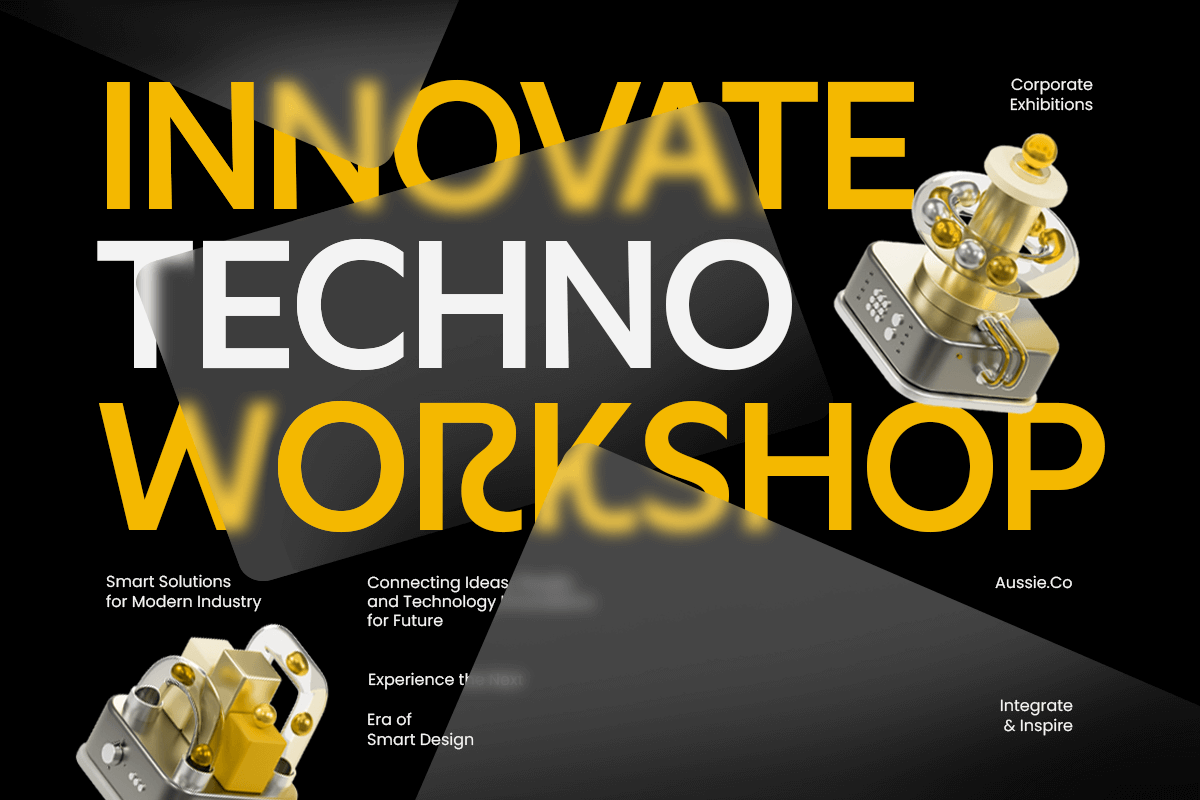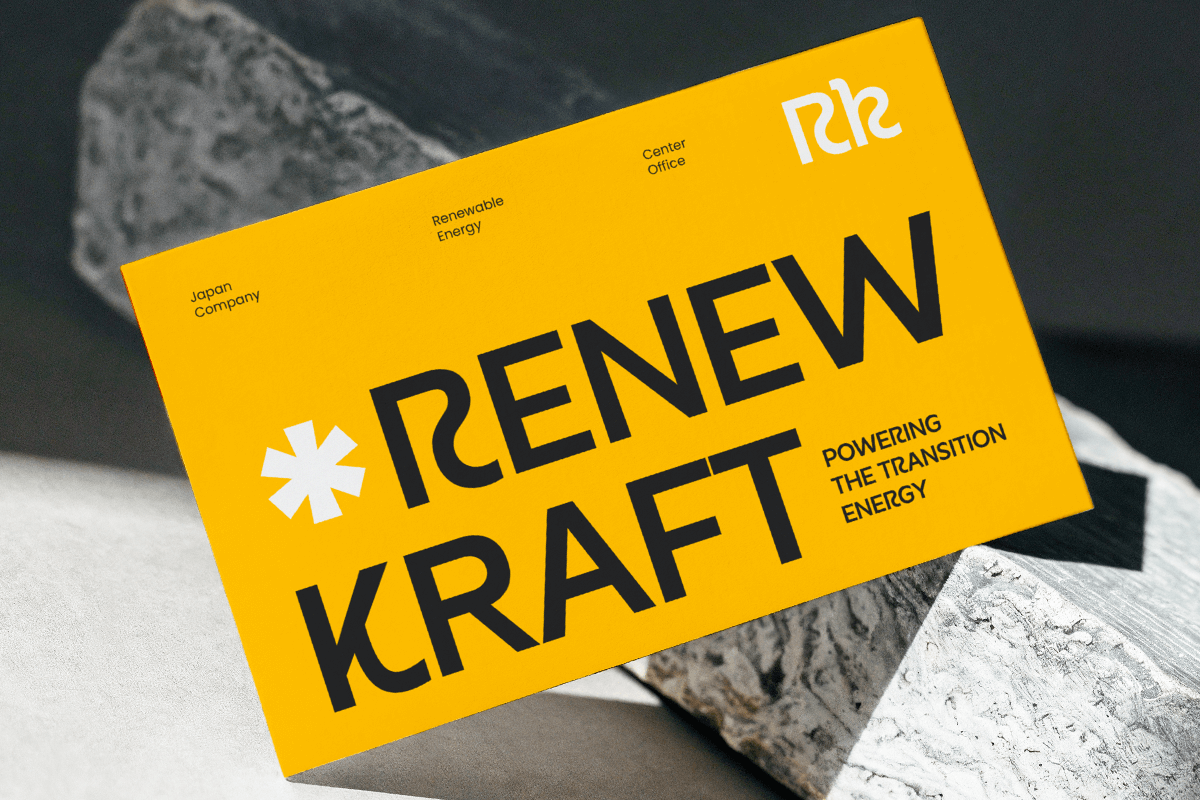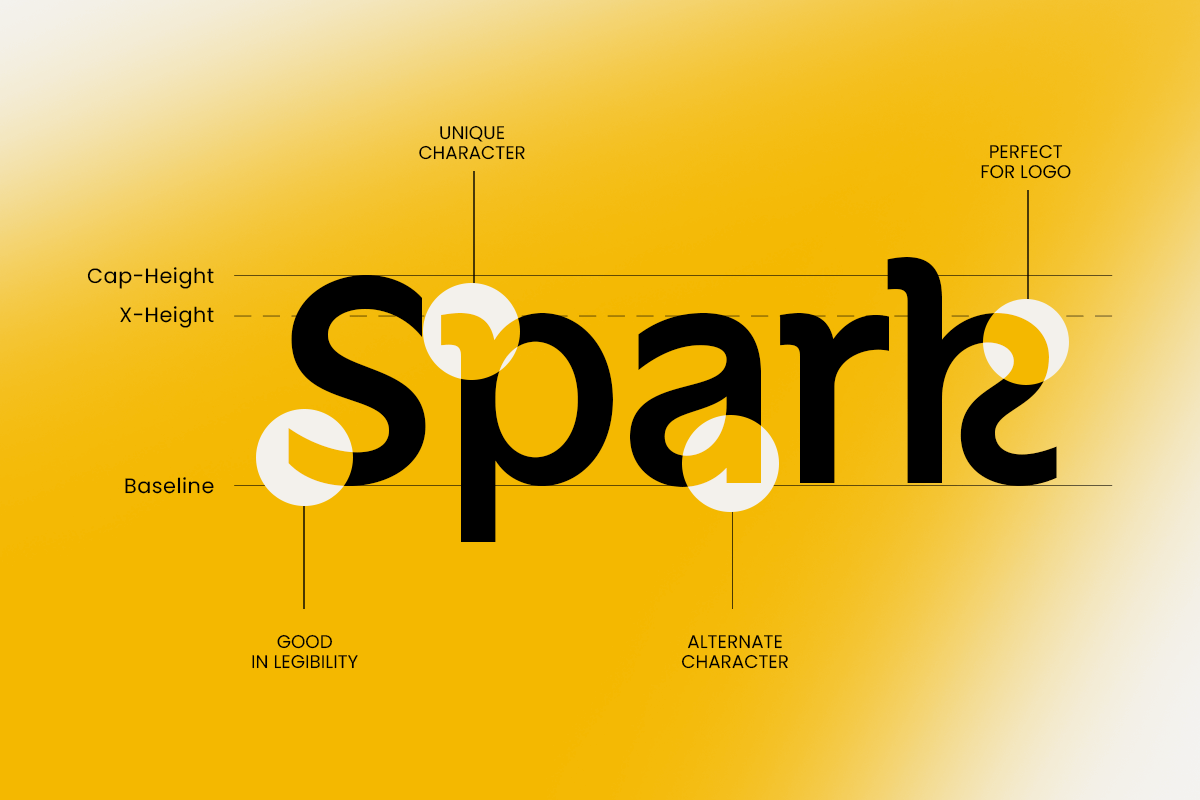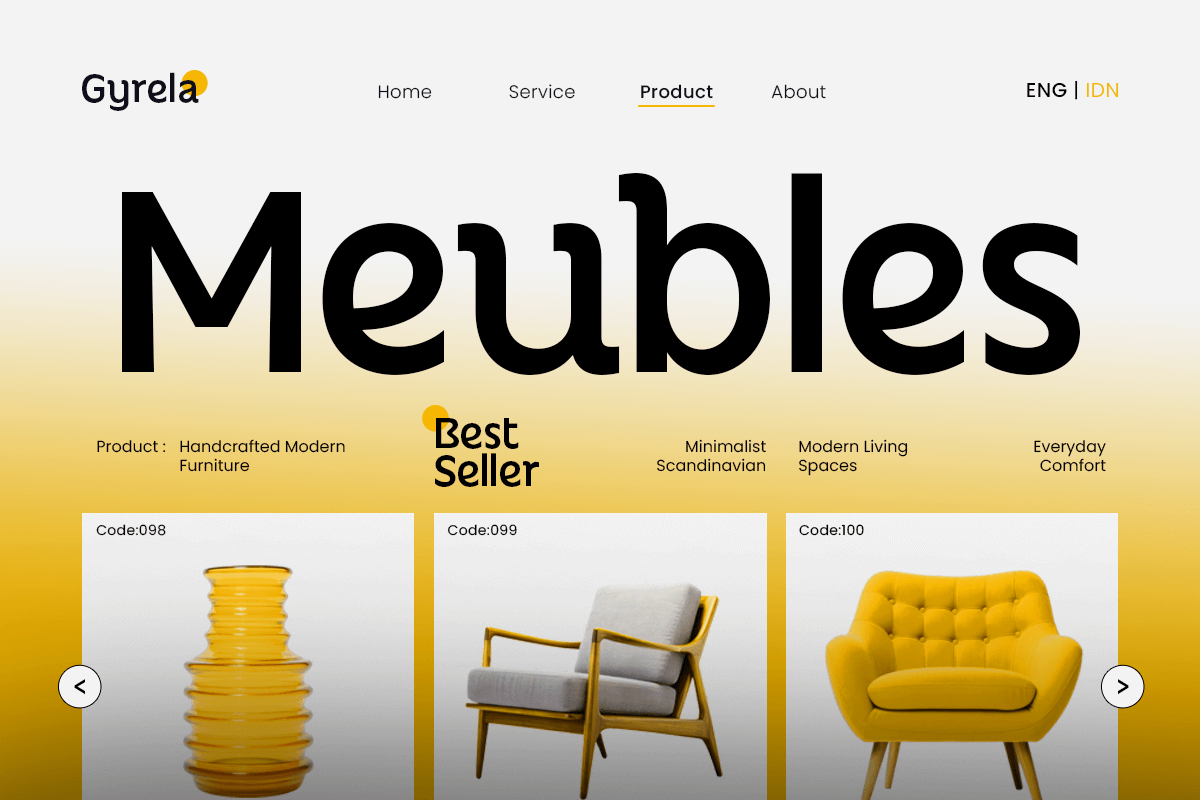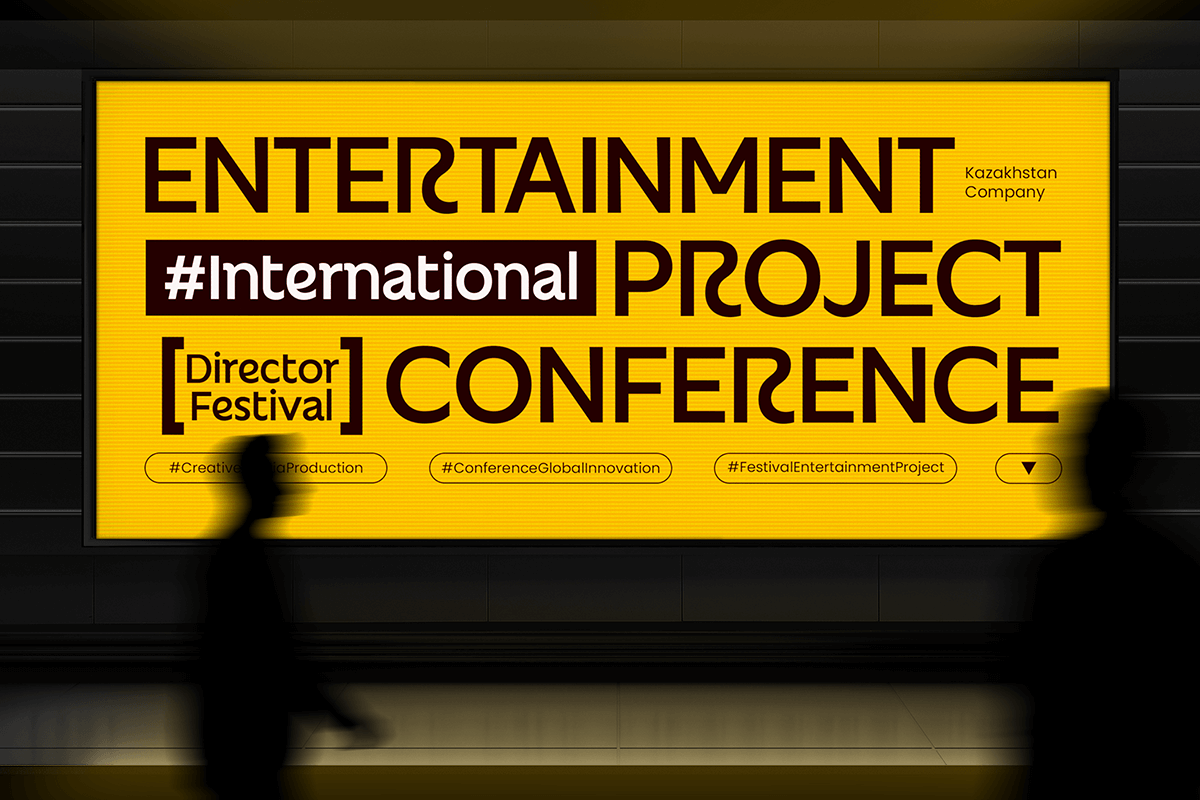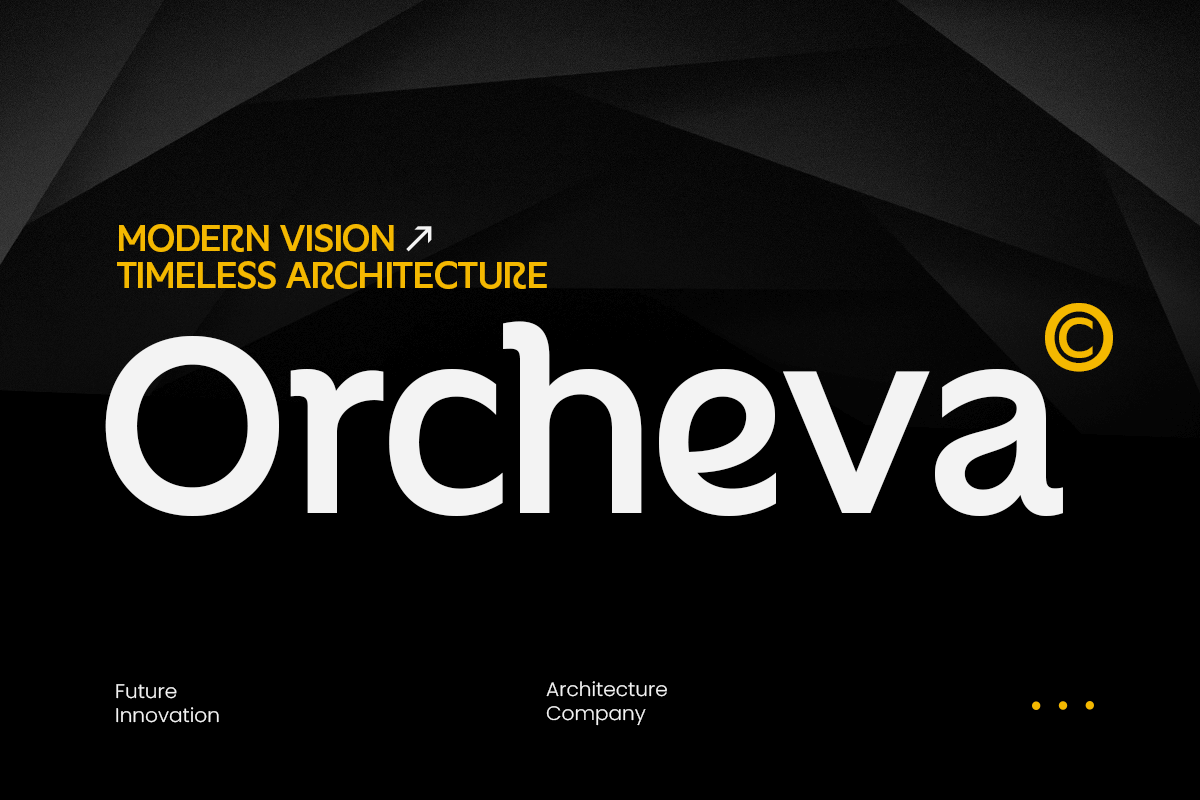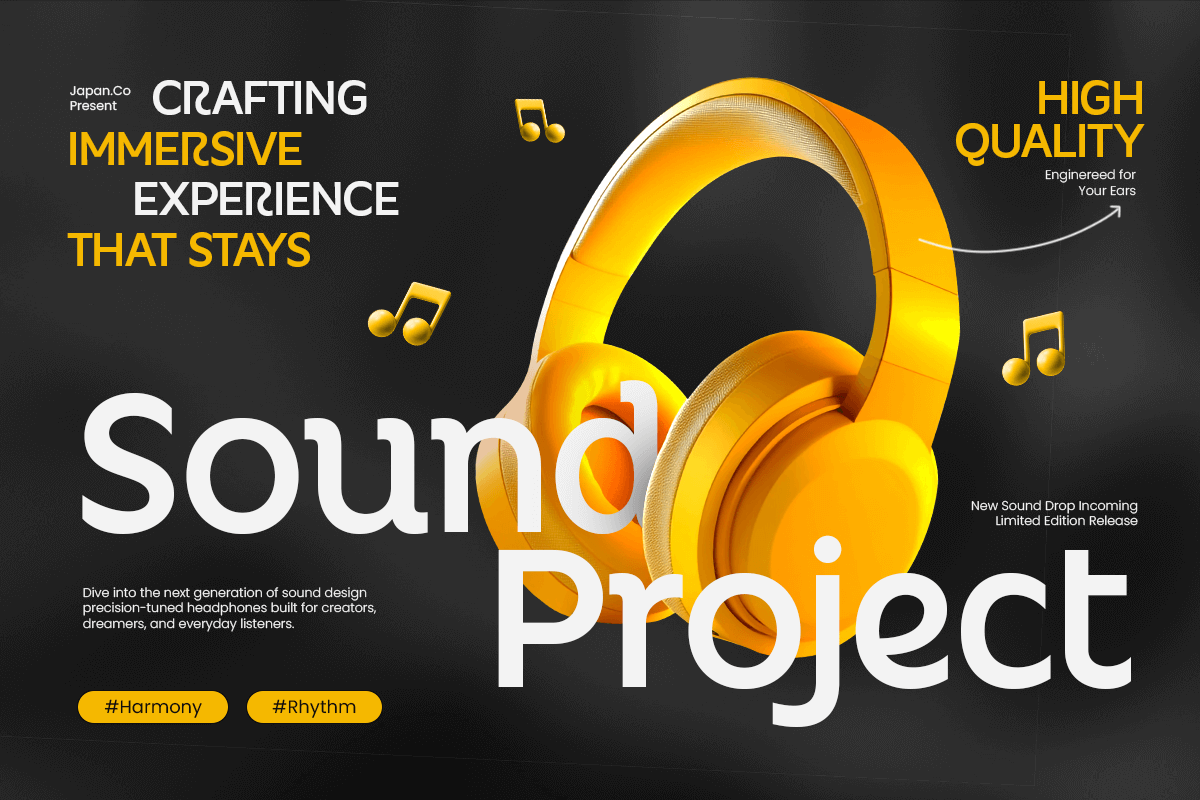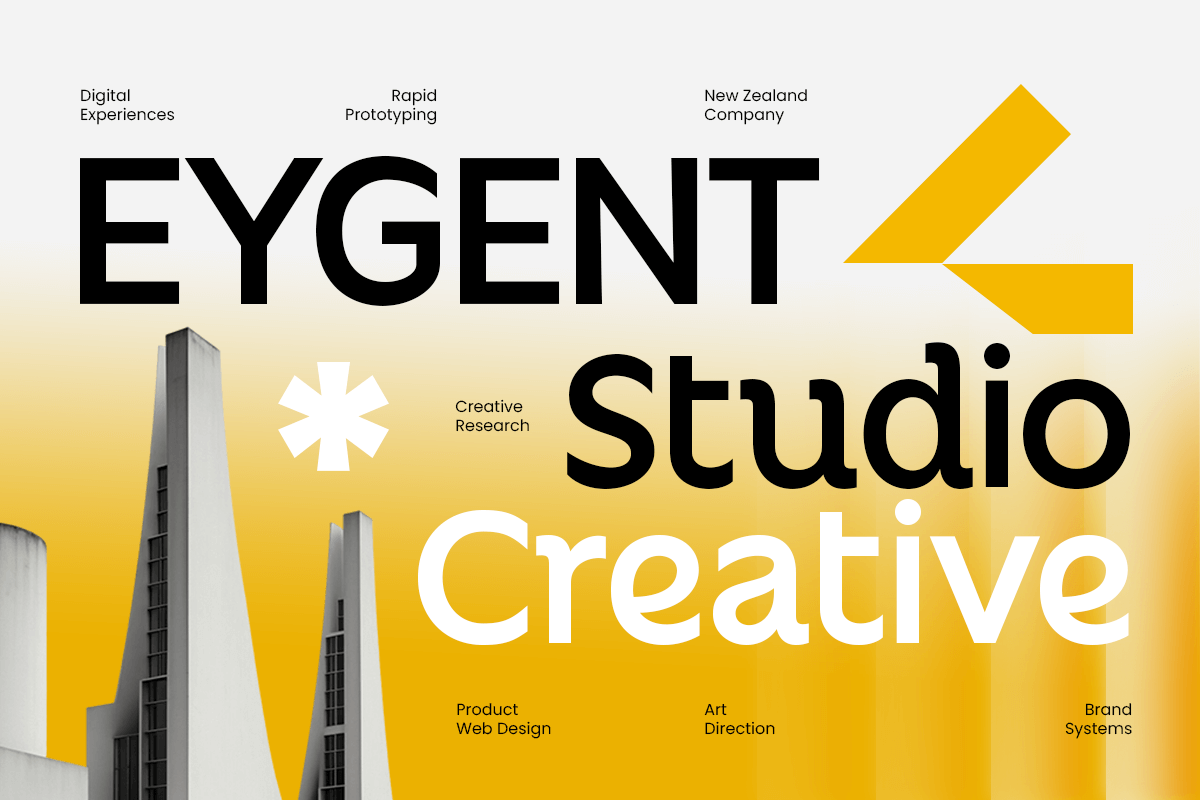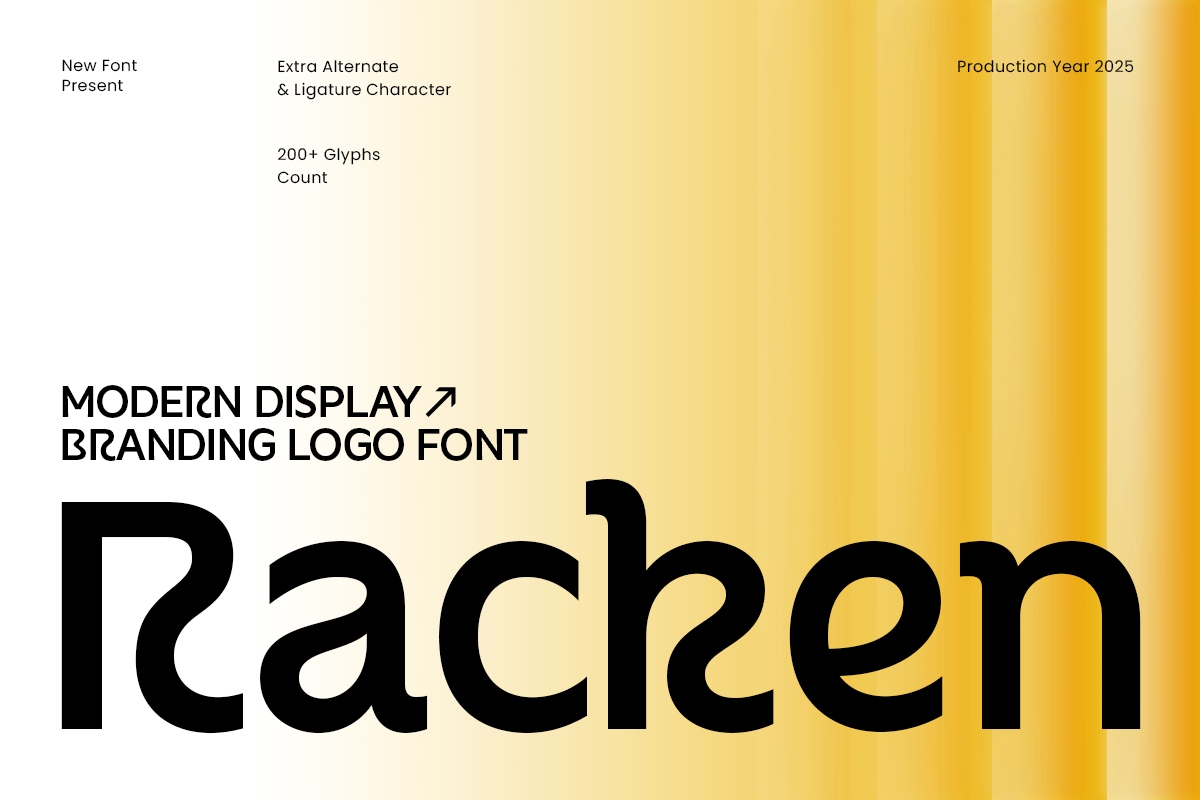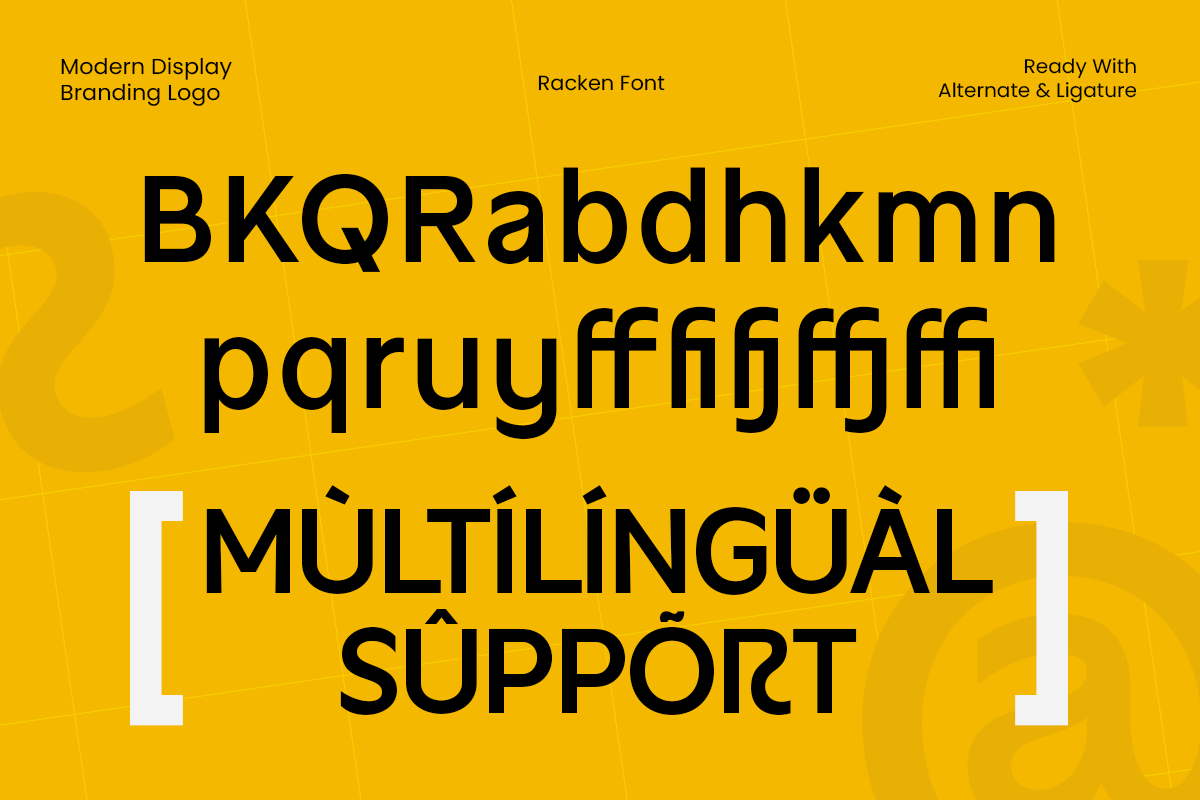
Racken - Modern Branding Logo Font
Racken – Modern Display Branding Logo Font
Racken is a bold and stylish modern display font crafted for strong branding and standout logo design. With its clean shapes, sharp edges, and contemporary character style, Racken delivers a confident visual identity perfect for creative studios, startups, product branding, packaging, advertising, and digital media.
Its sleek construction and balanced proportions make Racken a versatile choice for both large headlines and compact logo marks. Designed to provide clarity, impact, and a modern edge, Racken enhances any design that requires a memorable and professional display typeface.
Racken – Modern Display Branding Logo Font Features:
* Modern display style with strong branding appeal
* Perfect for logos, packaging, posters, and digital design
* Includes uppercase, lowercase, numbers, and punctuation
* Clean lines with excellent spacing for visual balance
* Ideal for contemporary, bold, and professional branding
Create impactful and modern identities with Racken – the display font designed for strong branding.